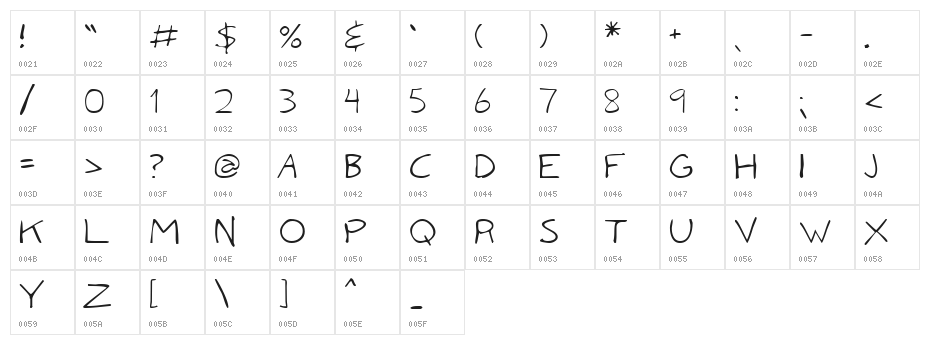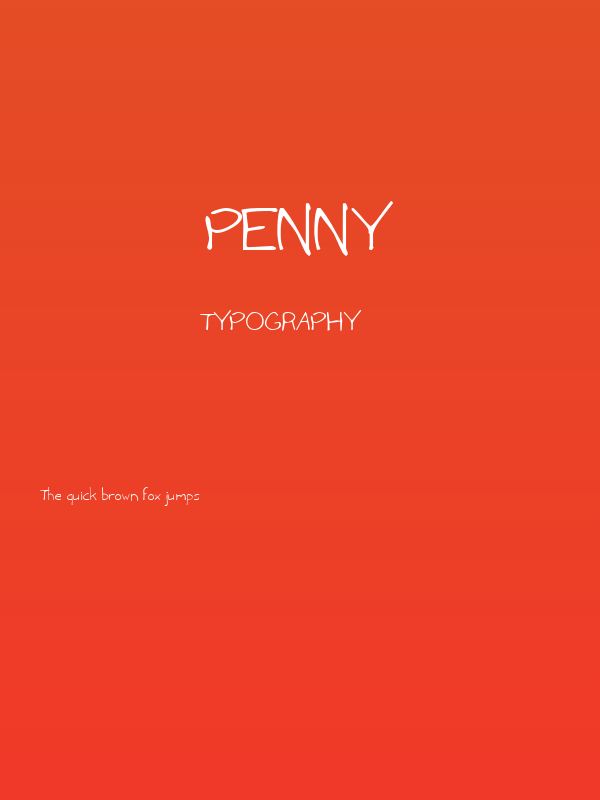
Penny Font
Penny Description
This font features a playful and casual handwritten style that exudes a sense of whimsy and informality. The characters are slightly irregular, with varying stroke thicknesses that add a dynamic and lively feel. The uppercase letters maintain a consistent height, while the lowercase letters exhibit a charming unevenness, enhancing the handwritten effect. The numerals are clear and legible, matching the overall playful aesthetic. Special characters are creatively integrated, maintaining the font's unique style. This font is perfect for projects that require a personal touch or a fun, approachable vibe.
| Proposed Projects | Ideal for greeting cards, children's books, playful branding, and informal invitations. |